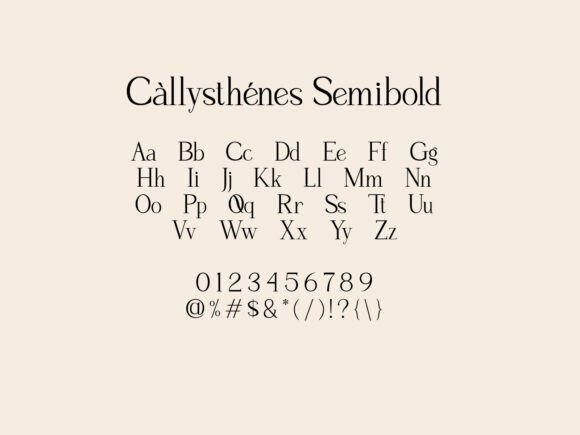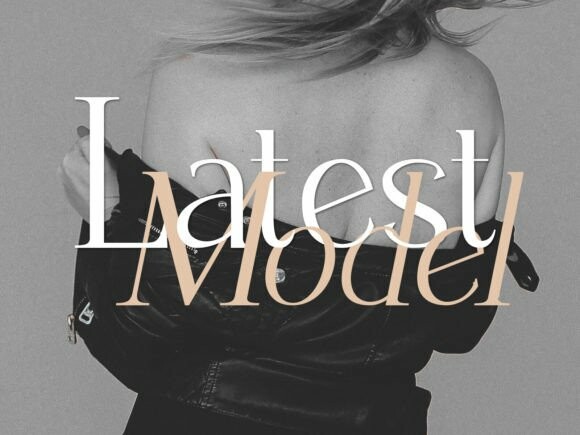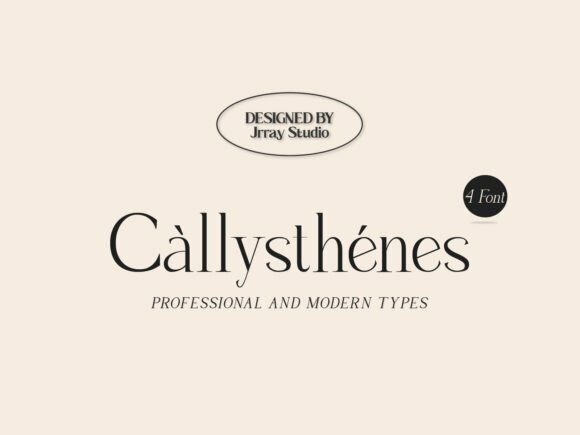
Callysthenes Font
Callysthenes Font, Professional and modern typeface to make your appearance look fresh, elegant, and stylish.
This font is perfect for creative projects such as logos, Cards, Apparel, Printed Products, Invitations, Product Packaging, Letterhead, Magazine, Book, etc.